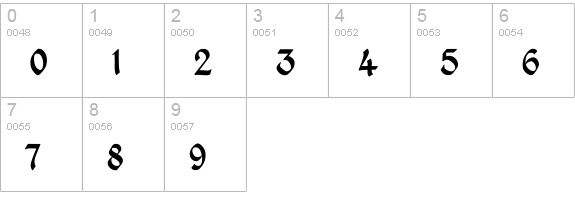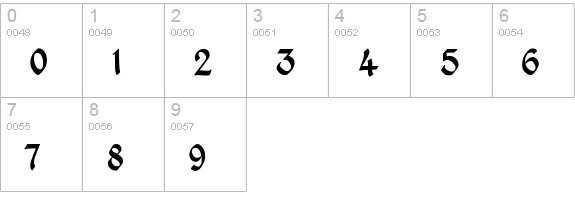
Kingthings Petrock is a captivating and versatile font that effortlessly blends elegance with a touch of playfulness. With its unique and intricate design, this font is sure to make your projects stand out and leave a lasting impression. Featuring a balanced combination of clean lines and eye-catching curves, Kingthings Petrock exudes a sense of charm and sophistication. Its slightly condensed letterforms add a modern twist, making it ideal for a wide range of creative endeavors, including branding, logo design, packaging, and much more. What makes Kingthings Petrock even more remarkable is that it is available to download for free at FontsMarket.com. This means that you can effortlessly add this exceptional font to your collection without any cost. Whether you are a professional designer looking to enhance your creative toolbox or a hobbyist seeking to elevate your personal projects, this font is a valuable resource that you cannot afford to miss. With its extensive character set, Kingthings Petrock offers support for multiple languages, allowing you to effortlessly communicate your message across diverse audiences. Its legibility and versatility make it suitable for both print and digital applications, ensuring that your designs will look exceptional in any context. In summary, Kingthings Petrock is a visually captivating font that seamlessly combines elegance and playfulness. Its availability as a free download at FontsMarket.com makes it an irresistible choice for designers and creatives seeking to add a touch of uniqueness to their projects. Embrace the beauty and versatility of Kingthings Petrock and let your creativity soar to new heights.